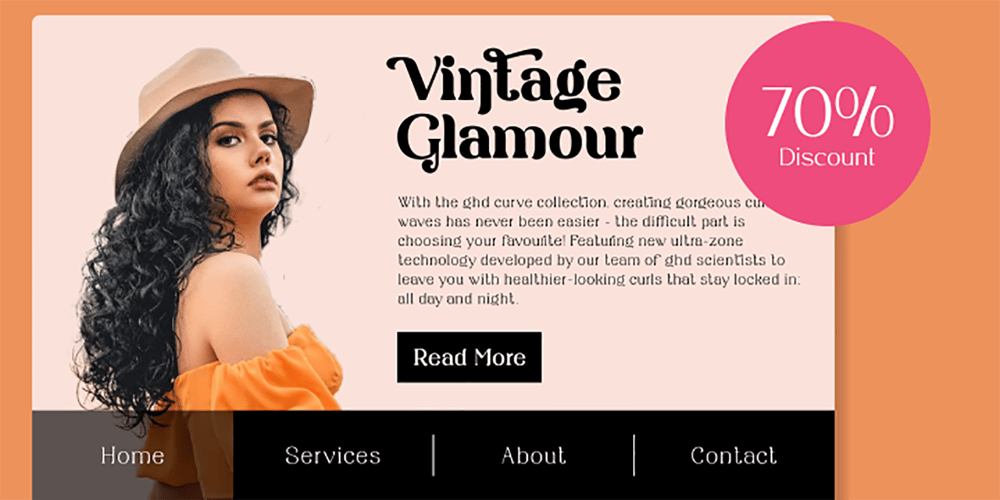
Rianti
Rianti font
Rianti Font Family was designed by Alfin Weniardi and published by Lone Army. Rianti contains 7 styles and family package options. The main purpose of Rianti is to be used as a logo that matches with body text. It can be used in both vintage or modern settings.